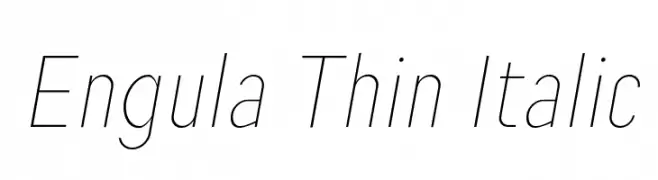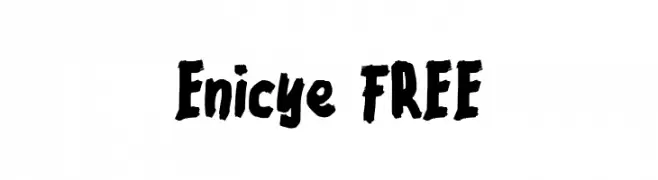
A bold, angular font with a modern twist on traditional blackletter styles.
A bold, angular font with a geometric and modern design.
A modern italic font with clean lines and smooth curves.
A clean, modern sans-serif font with uniform stroke width and excellent readability.
A modern, thin, and elegant font with high contrast and balanced spacing.
A modern, thin italic font with elegant strokes and a dynamic style.
A bold, geometric font with a modern, futuristic style and rounded edges.
A dot matrix style font with a digital, retro feel.
A pixelated, LED-inspired font with a modern, digital aesthetic.